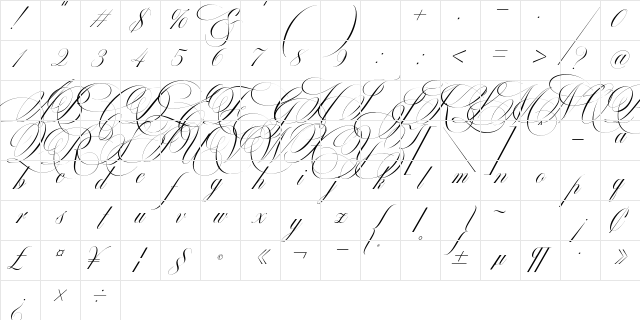
Billa Mount Regular
Foundry: Alit Design
Designer: Kana Widana
Design Context for Billa Mount
Billa Mount is a composed and adaptable typeface that performs quietly and consistently across a wide range of design contexts.